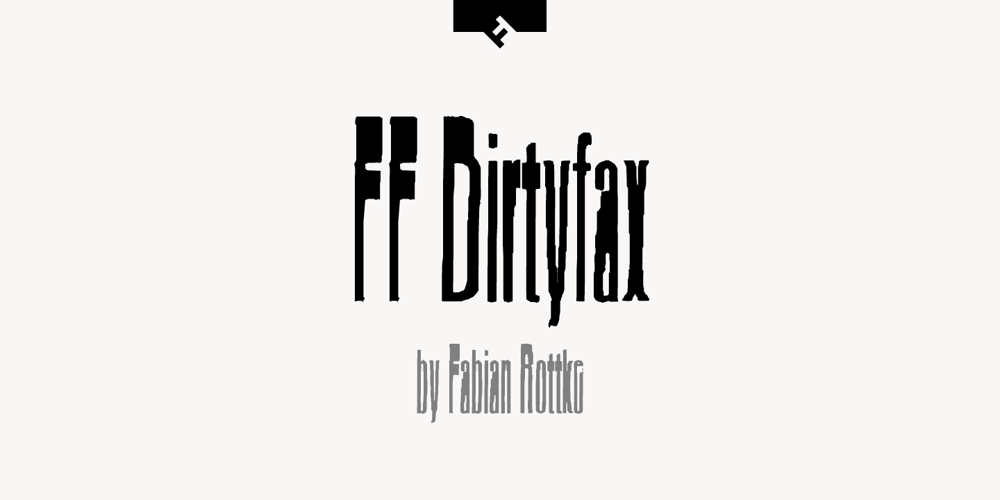
FF Dirtyfax Font Family was designed by Fabian Rottke and published by FontFont. FF Dirtyfax contains 2 styles and family package options. German type designer Fabian Rottke created this display FontFont in 1995. The family contains 2 weights: Regular and Heavy and is ideally suited for film and tv, music and nightlife, poster and billboards as well as software and gaming. FF Dirtyfax provides advanced typographical support with features such as ligatures. It comes with proportional lining figures.